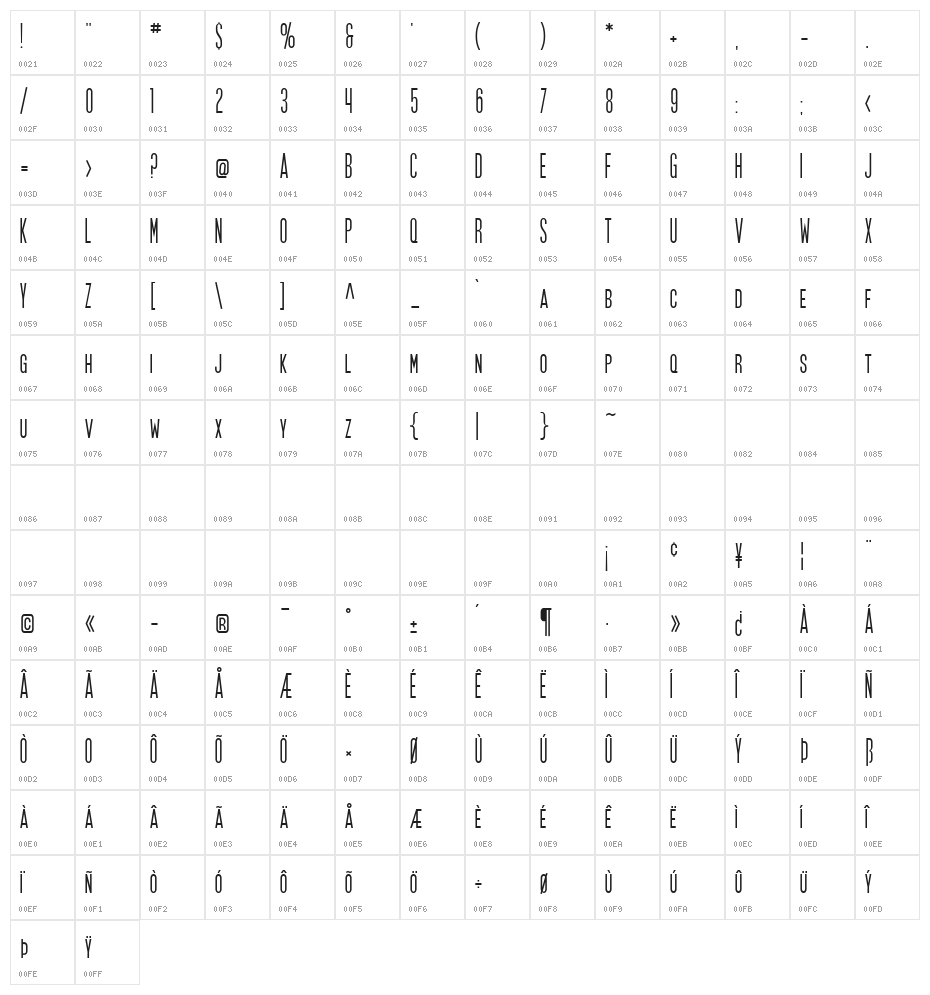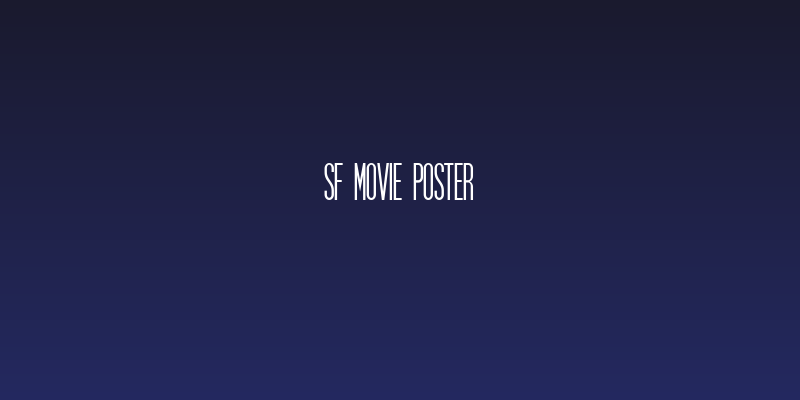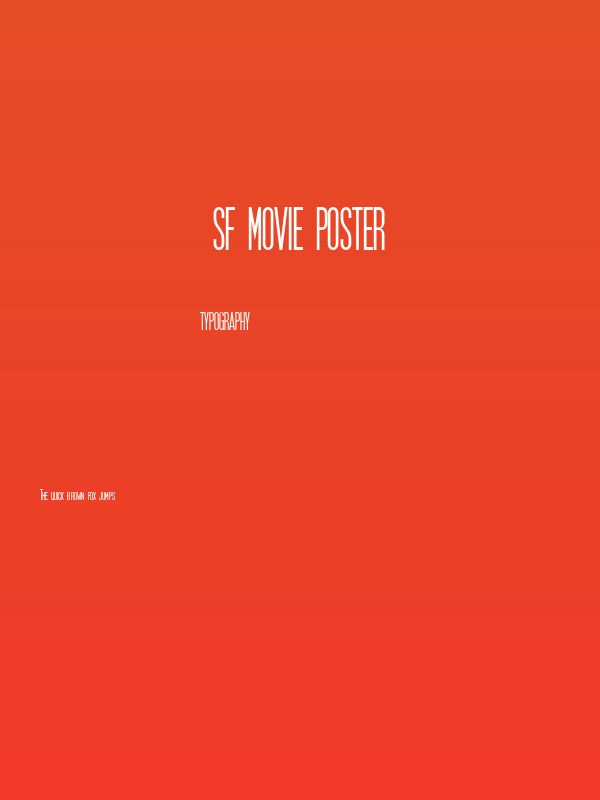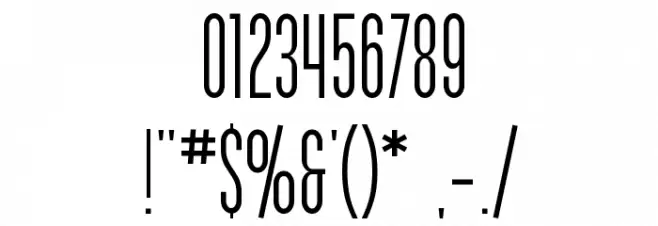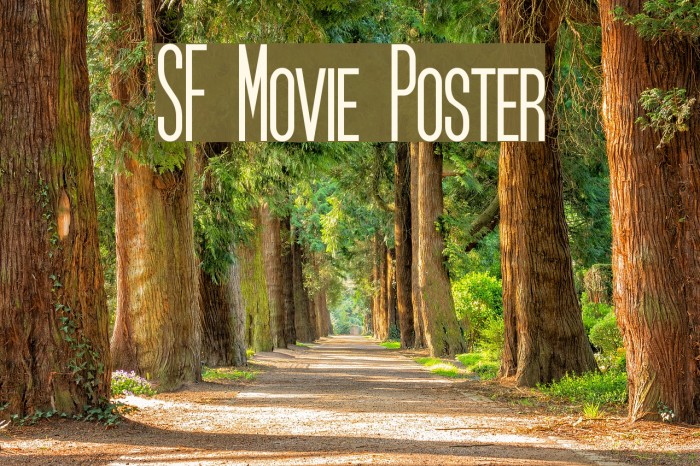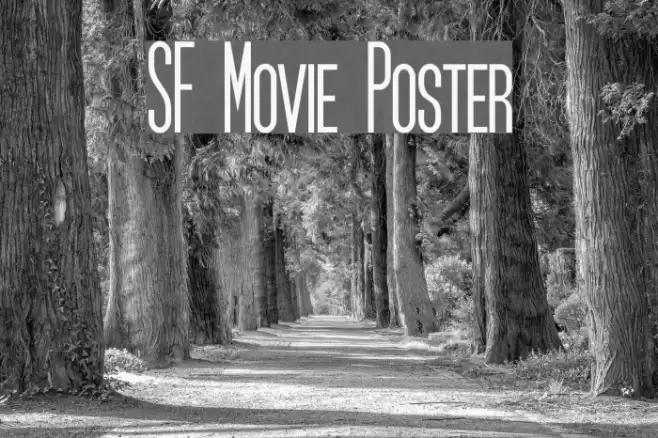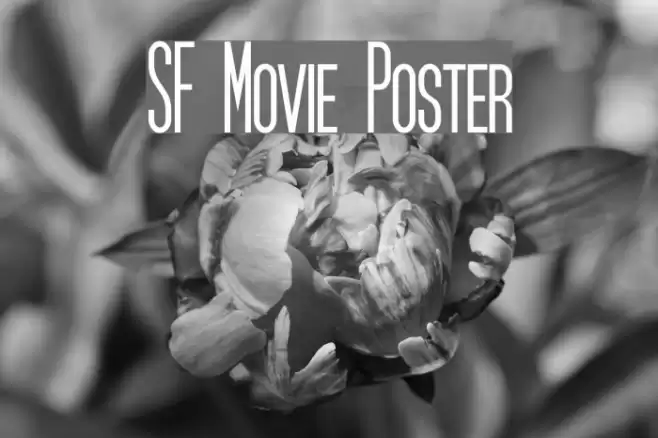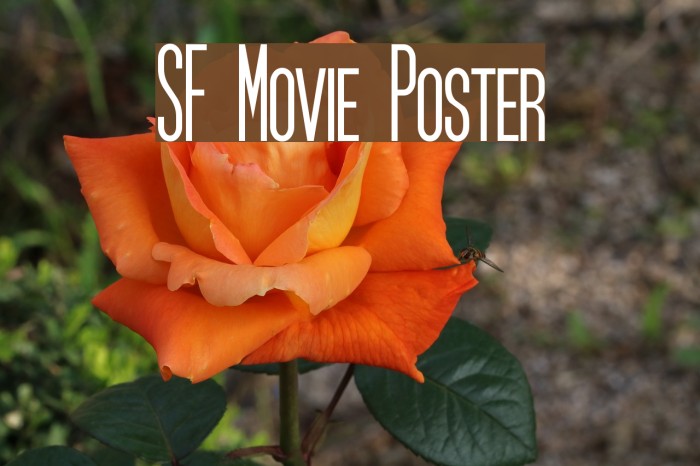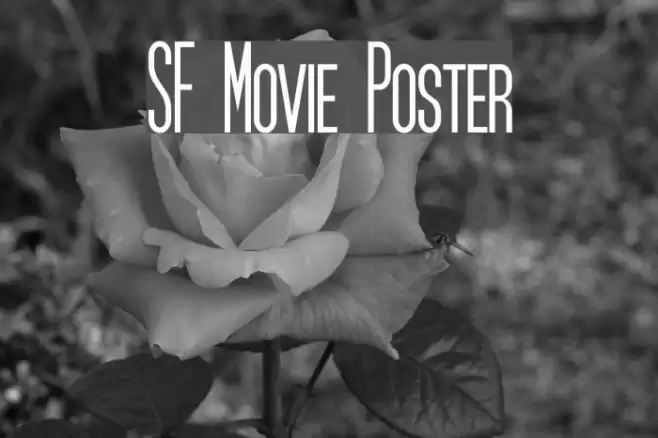
SF Movie Poster Font
SF Movie Poster Description
This font features a tall, narrow design with clean, straight lines and a modern aesthetic. The uppercase letters are particularly elongated, giving a dramatic and impactful appearance. The lowercase letters maintain a consistent height, complementing the uppercase with a cohesive style. Numbers are similarly designed, ensuring readability and uniformity. Special characters are included, matching the overall sleek and contemporary look. The font's design is ideal for creating striking visual statements, making it suitable for various creative applications.
| Width | Condensed |
| Proposed Projects | Ideal for movie posters, book covers, advertising, and branding projects where a bold statement is needed. |